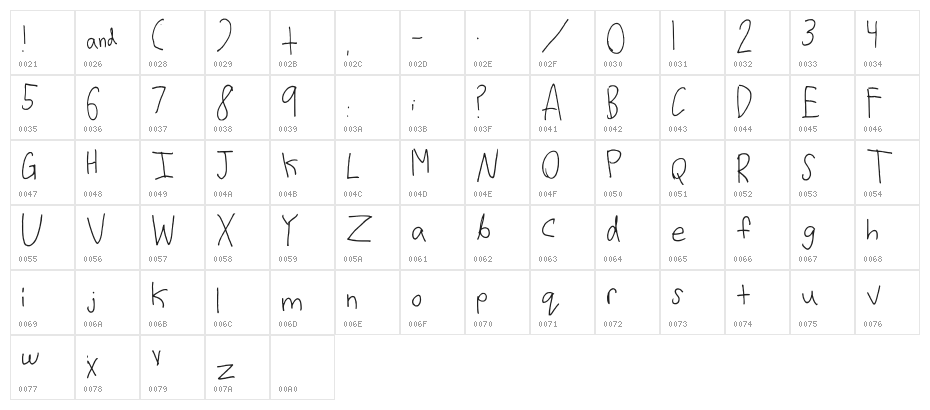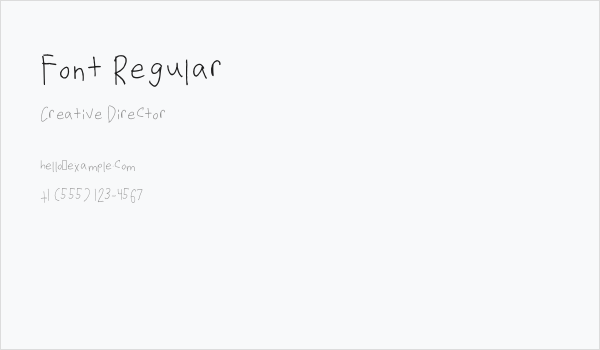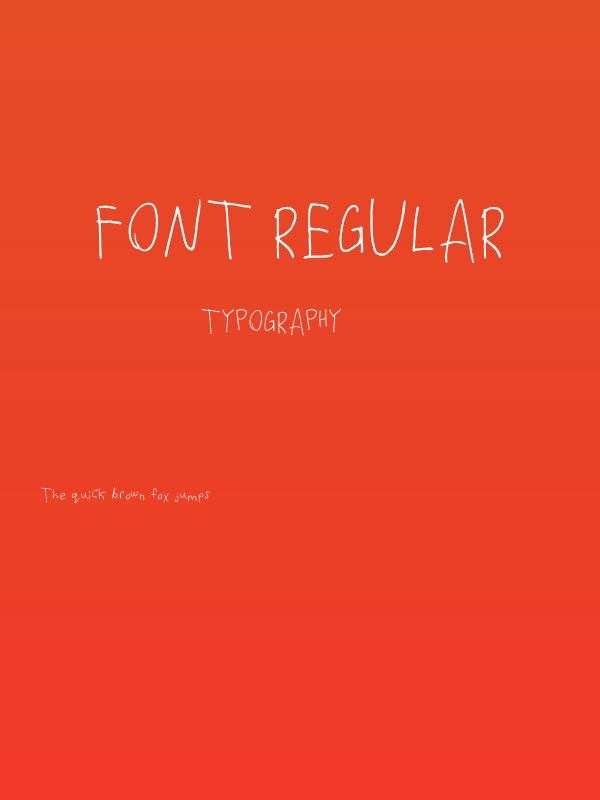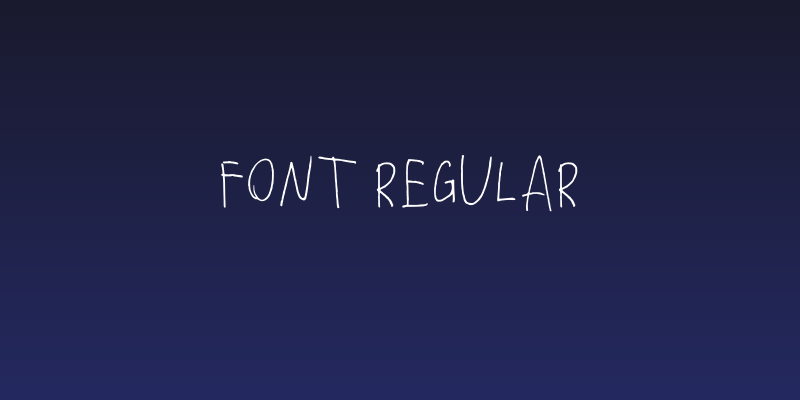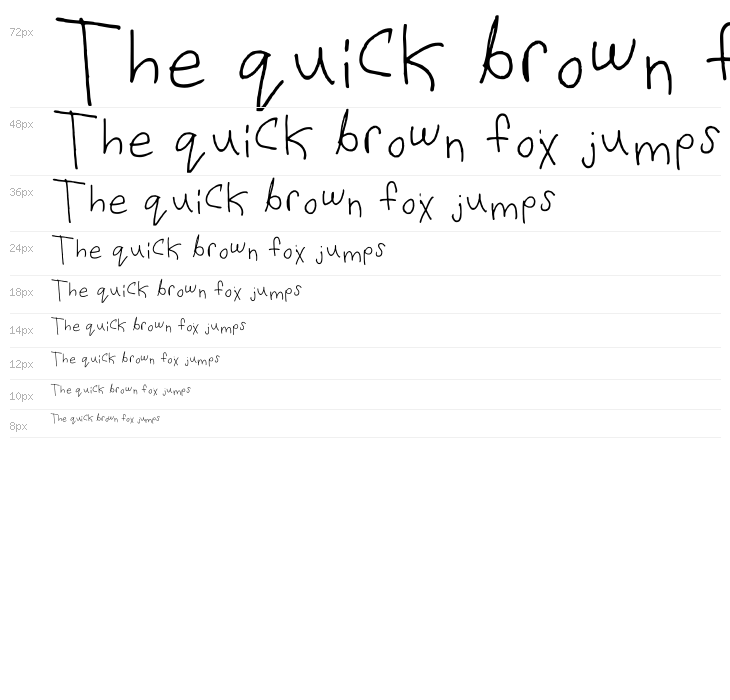
Font Regular Font
Font Regular Description
This font features a handwritten style with a casual and informal appearance. The characters are unevenly spaced and vary slightly in size, giving it a playful and organic feel. The strokes are thin and consistent, with a slight wobble that adds to its charm. The uppercase letters are tall and narrow, while the lowercase letters are more rounded and open. Numbers and special characters maintain the same whimsical style, making this font suitable for creative and informal projects.
| Overall Style | Casual |
| Use Case | Headlines, Informal text, Creative projects |
| Proposed Projects | Ideal for greeting cards, children's books, casual invitations, and personal blogs. |